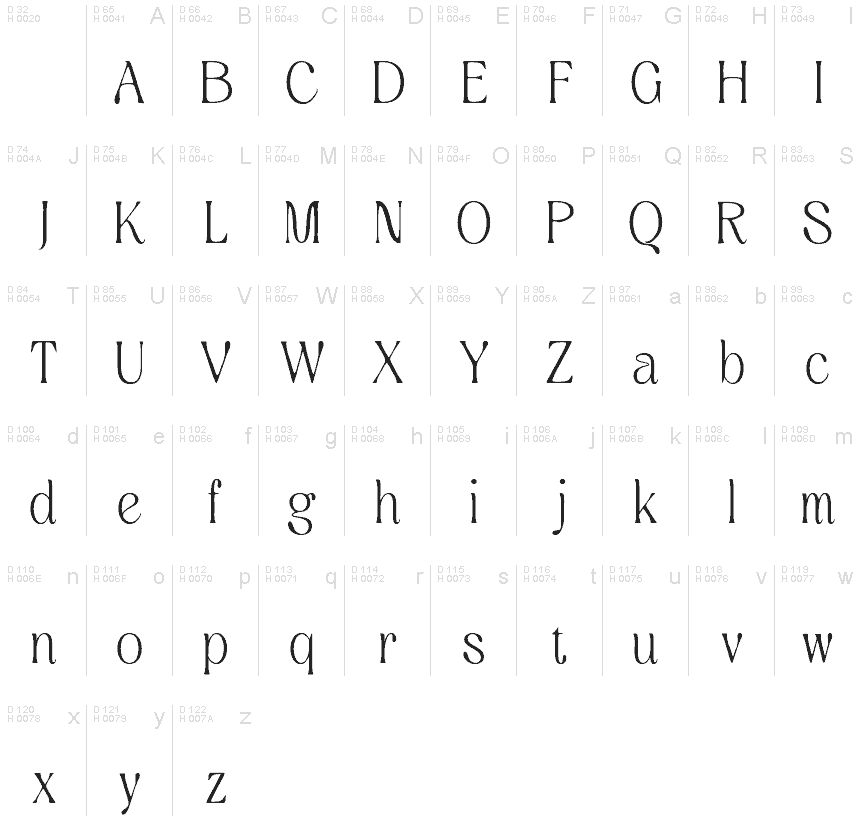
Quenza Drawn font by Craft Supply Co. is an elegant blend of modern serif influences and flowing, graceful design. This free serif font embodies a subtle sophistication that’s perfect for capturing contemporary aesthetics in a variety of visual projects.
Use it for fashion, editorials, magazines, branding designs, packaging projects, print arts, books covers, or adventure time posters. Explore your creativity with its classic forms where new perspectives rule every inch you look at.